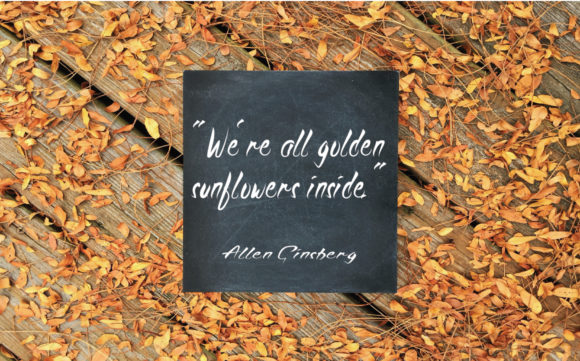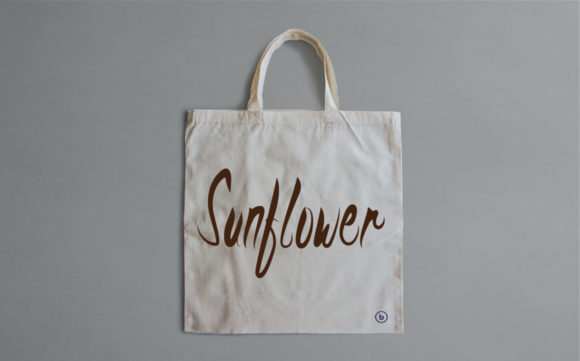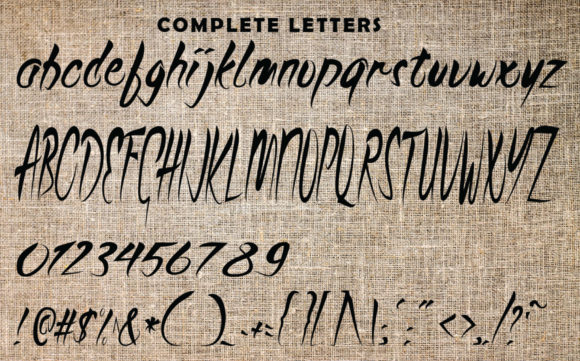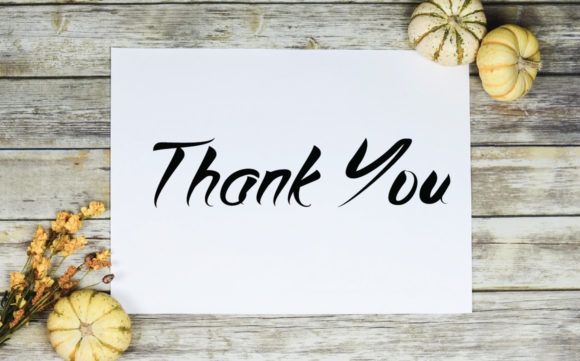
Sunflower Fall Font
About Sunflower Fall Font
Sunflower Fall is a charming and elegant handwritten font. This stunning script font is a stylish homage to classic calligraphy. It features a varying baseline, smooth lines, gorgeous glyphs and stunning alternates. Fall in love with its authentic feel and use it to create gorgeous wedding invitations, beautiful stationary art, eye-catching social media posts, and cute greeting cards.